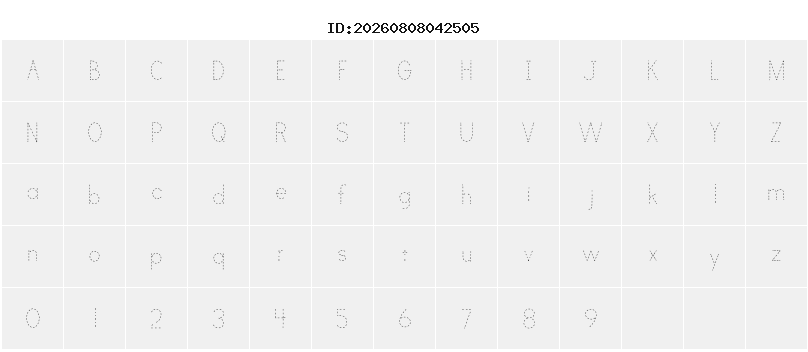
About Print Clearly Dashed.ttf
Print Clearly Dashed.ttf is a modern, elegant sans-serif font designed for ultimate readability and visual harmony. Perfect for branding, headlines, web design, and print materials.